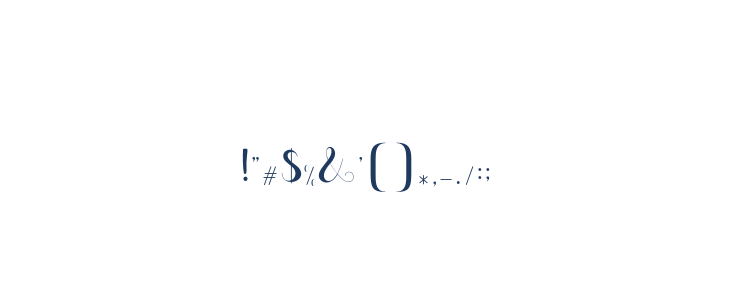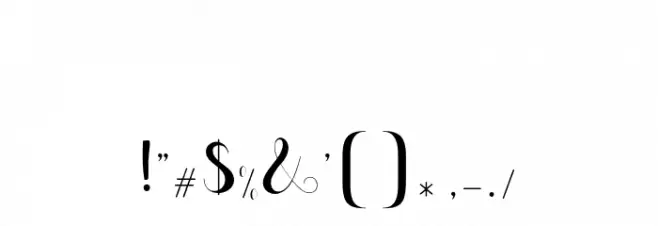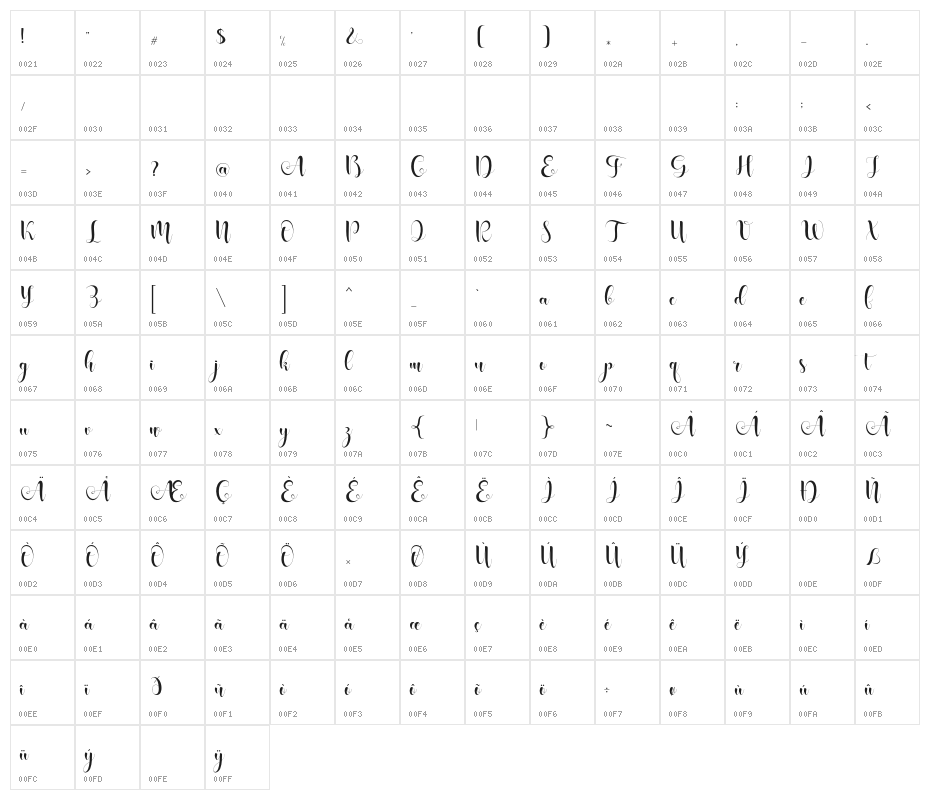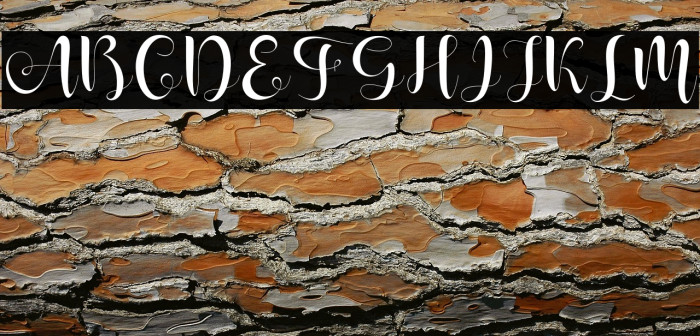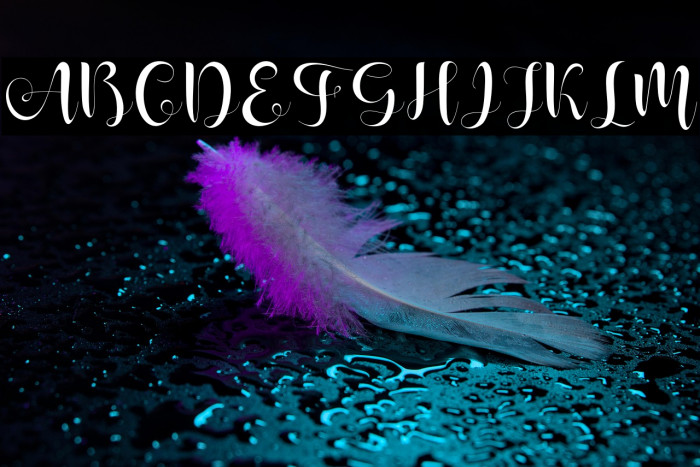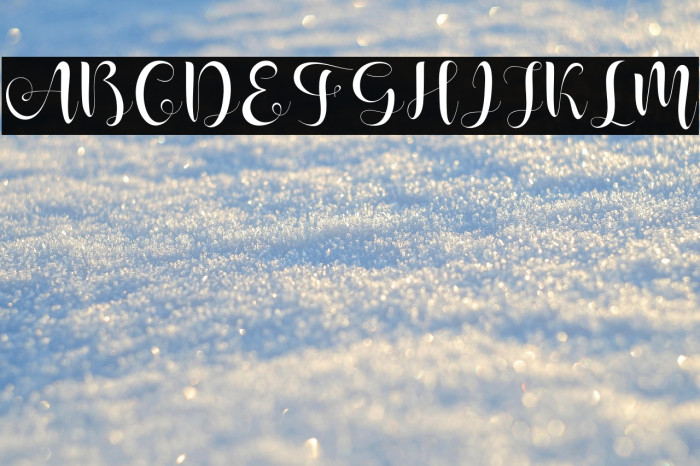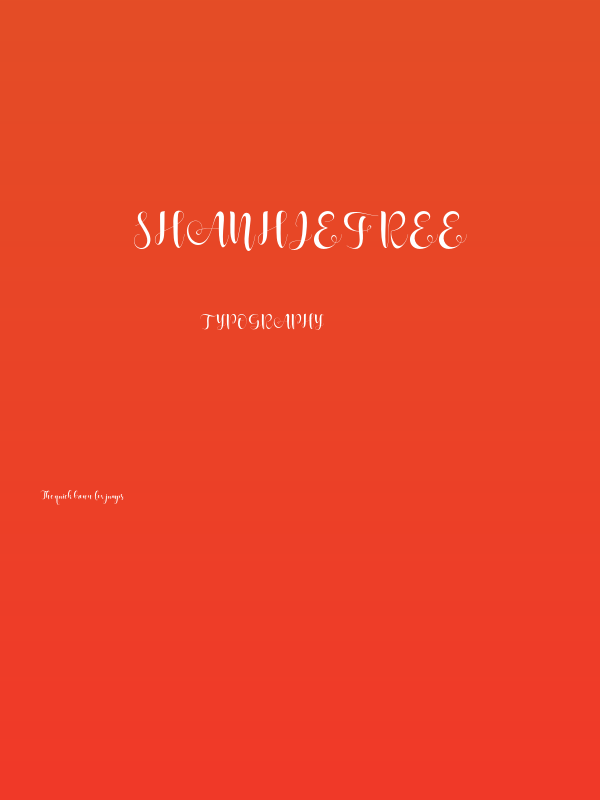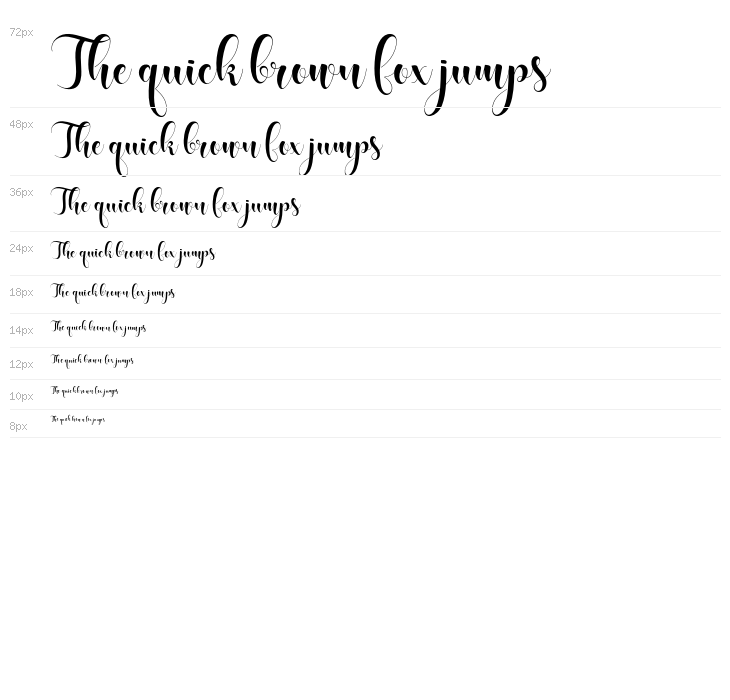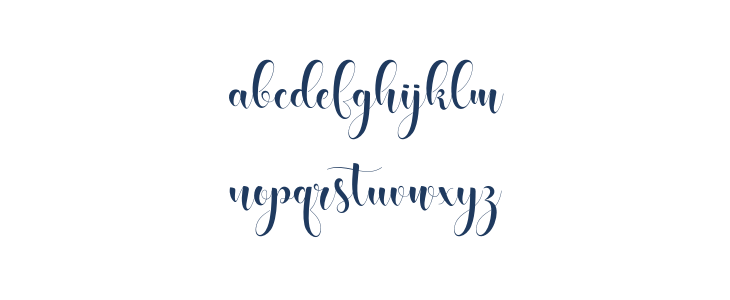
ShanhieFree Font
This elegant script font features a flowing, cursive style with intricate swashes and flourishes. The uppercase letters are particularly ornate, with loops and curves that add a sense of movement and grace. The lowercase letters maintain a consistent style, offering a harmonious blend with the uppercase. The font's overall appearance is sophisticated and decorative, making it ideal for formal invitations, branding, and artistic projects. The numerals and special characters are designed to complement the letters, ensuring a cohesive look across all text elements.
Use CaseLogos, Invitations, Artistic projects
Proposed ProjectsIdeal for wedding invitations, luxury branding, greeting cards, and artistic designs.